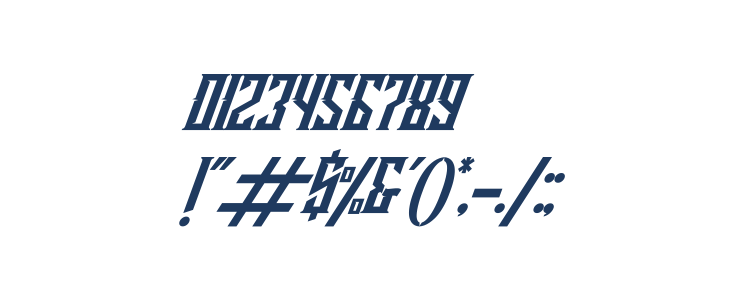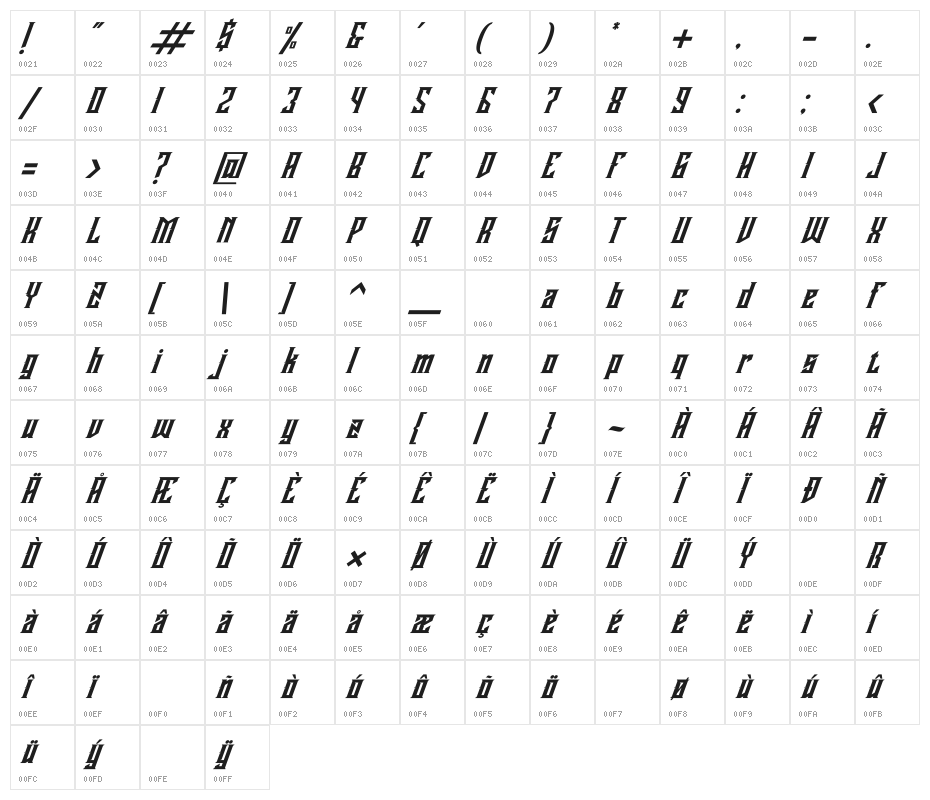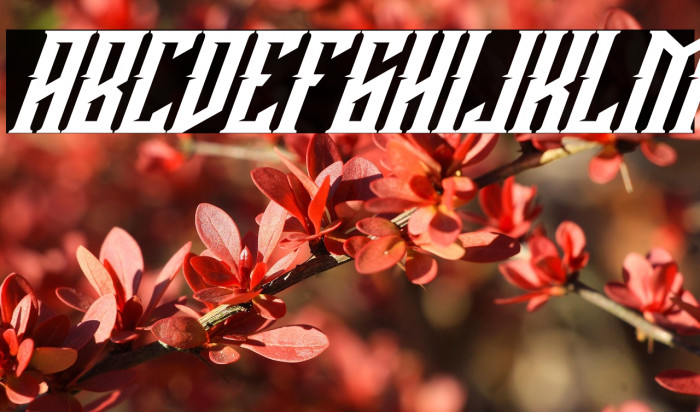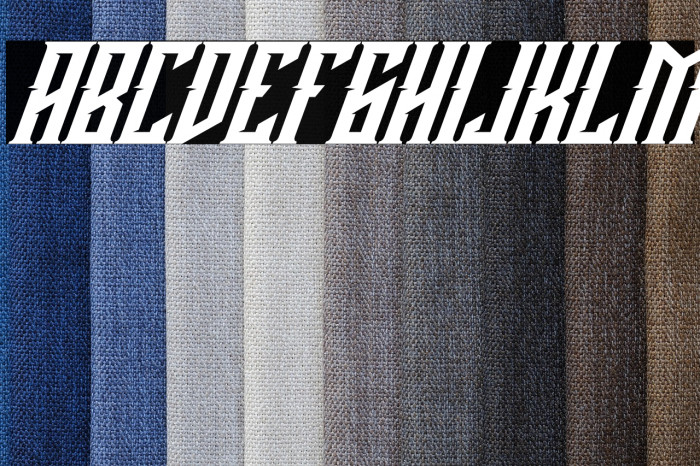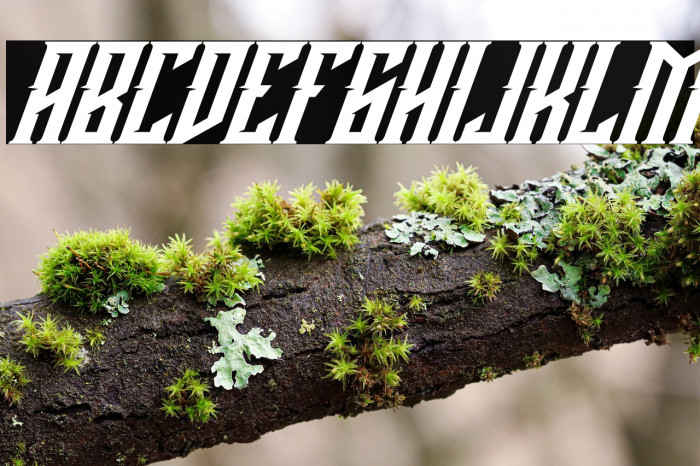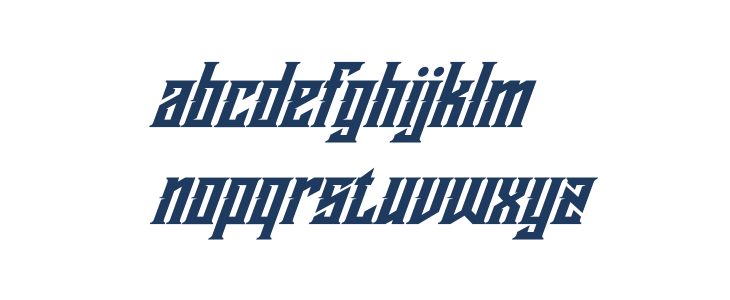
Buckingham Italic Font
Buckingham Italic Description
This font features a bold and dynamic style with sharp, angular lines that create a sense of movement and energy. The characters are italicized, giving them a forward-leaning appearance that enhances their dynamic quality. The uppercase and lowercase letters maintain a consistent height, while the numbers and special characters are designed to match the overall aesthetic. The font's strong geometric shapes and high contrast between thick and thin strokes make it highly legible and impactful, suitable for attention-grabbing designs.
| Proposed Projects | Ideal for use in branding, posters, and headlines where a strong, dynamic presence is needed. |